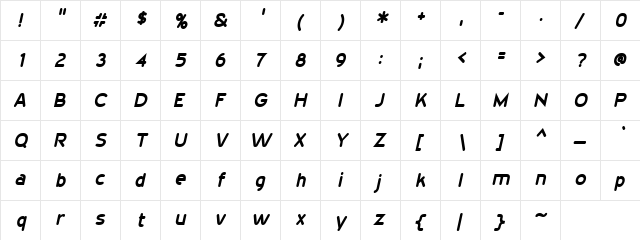
Veljovic Regular
Design Context for Veljovic Typeface
Veljovic takes a measured approach to typography — its balanced proportions and neutral character make it a reliable workhorse for both digital and print work.